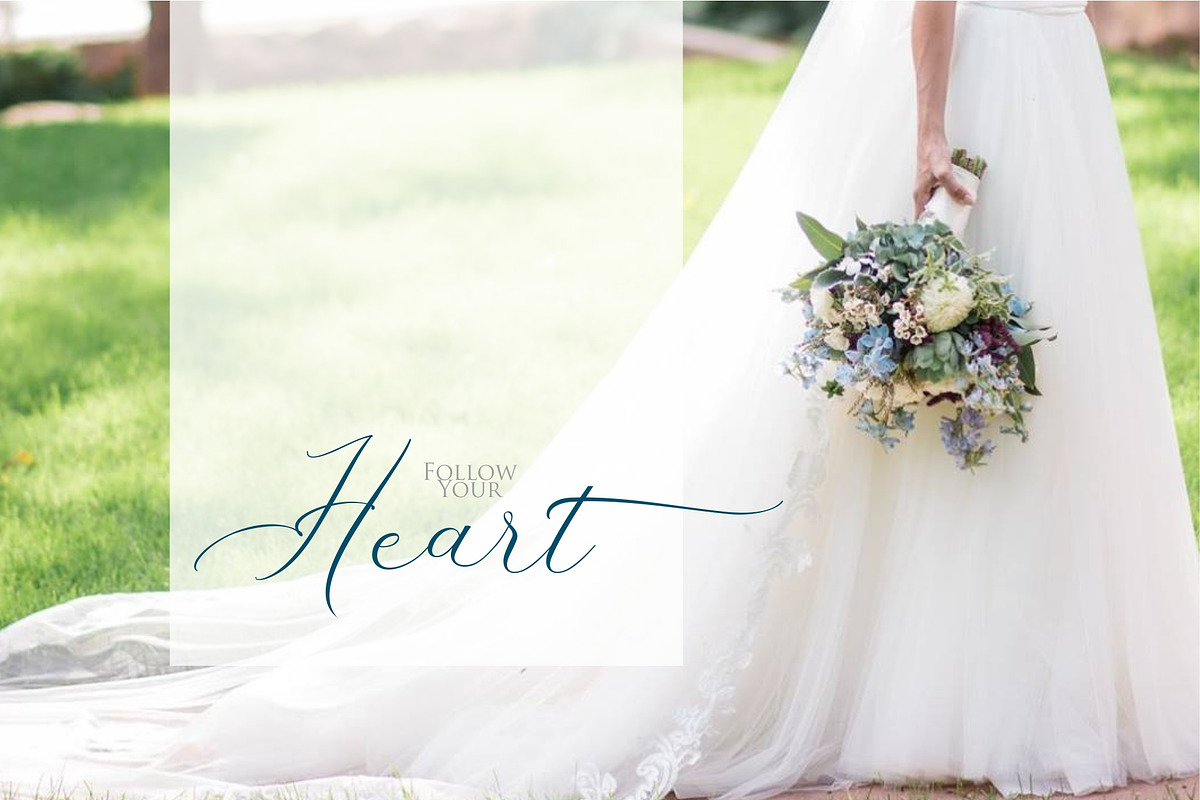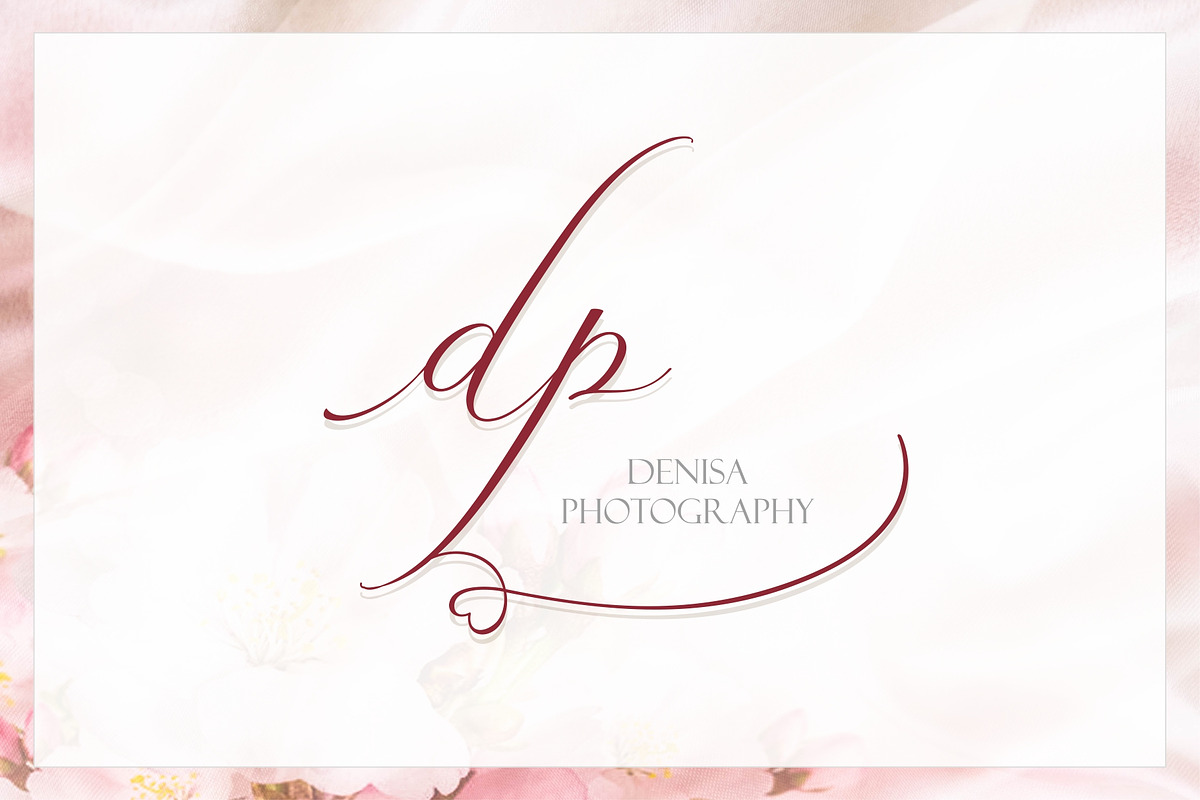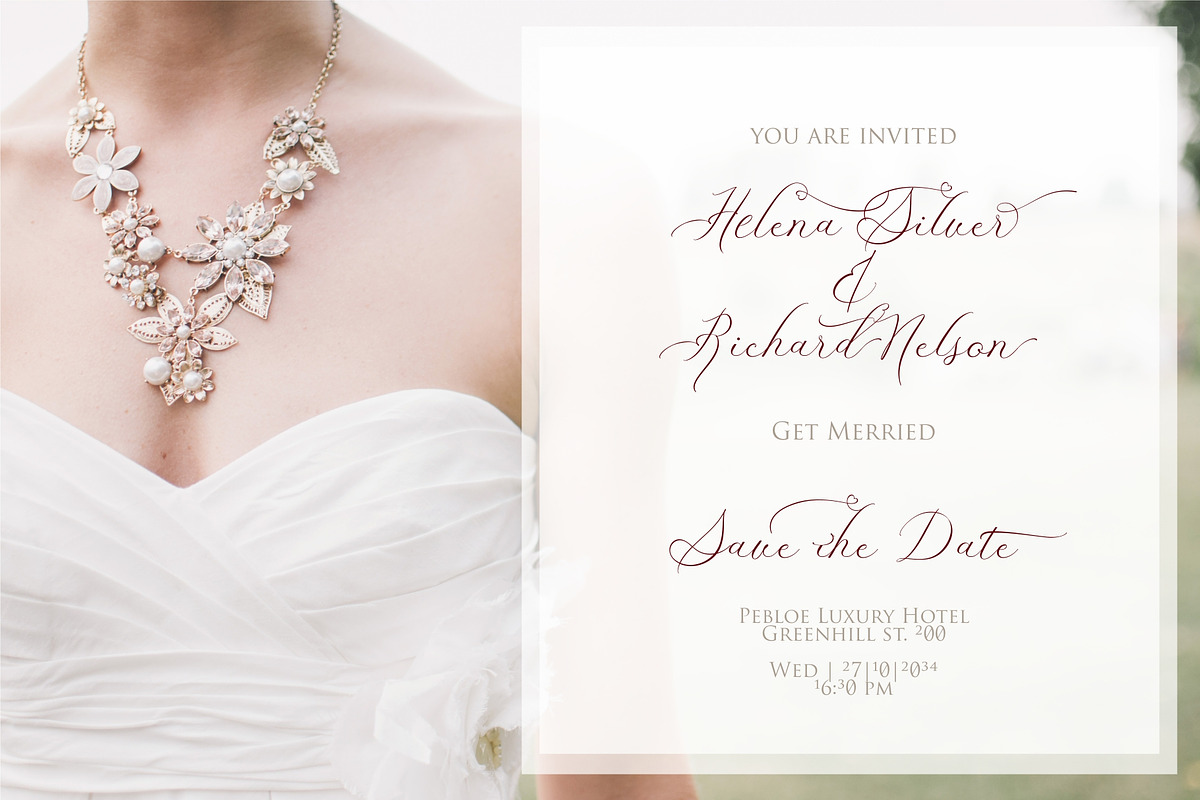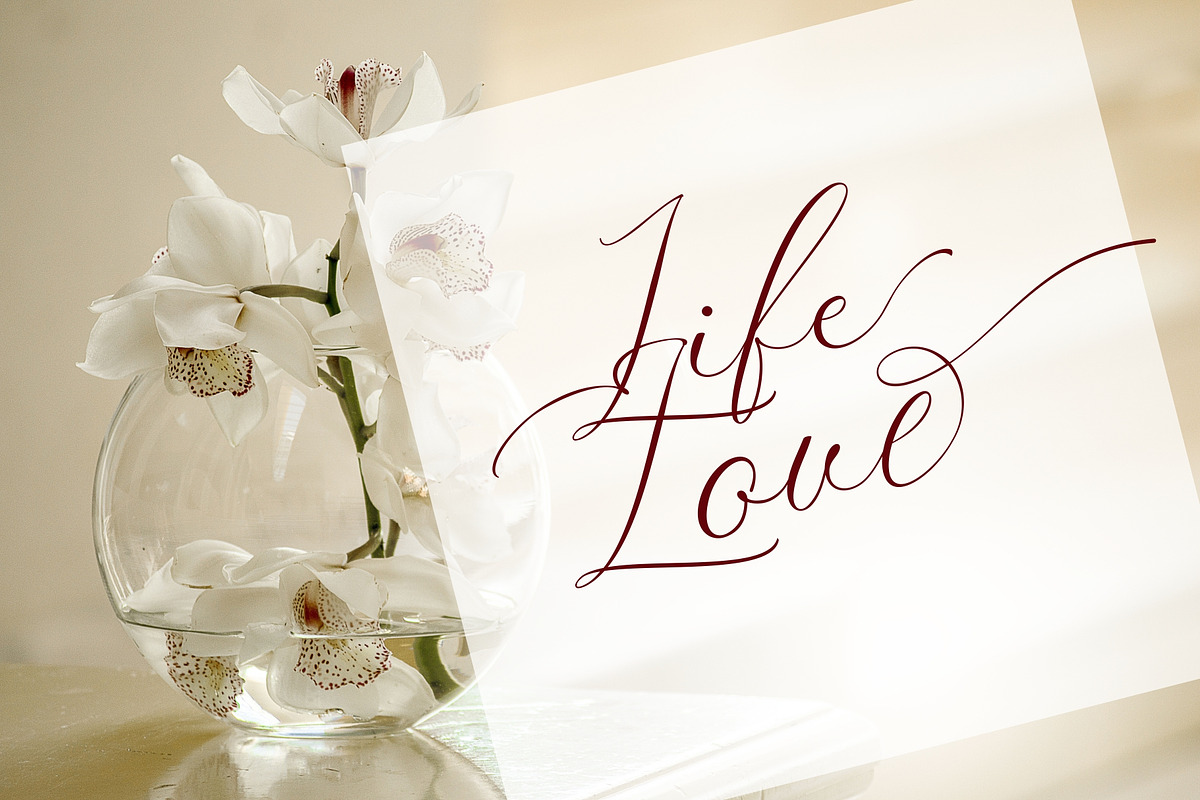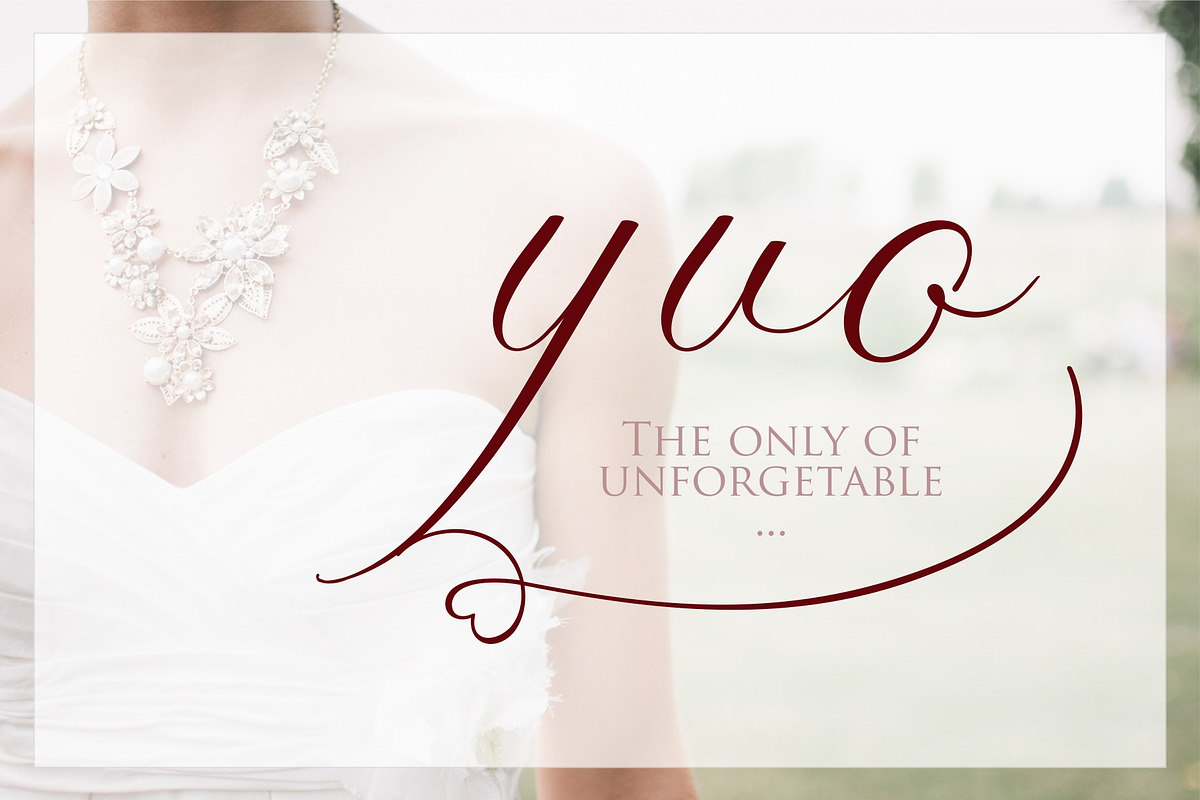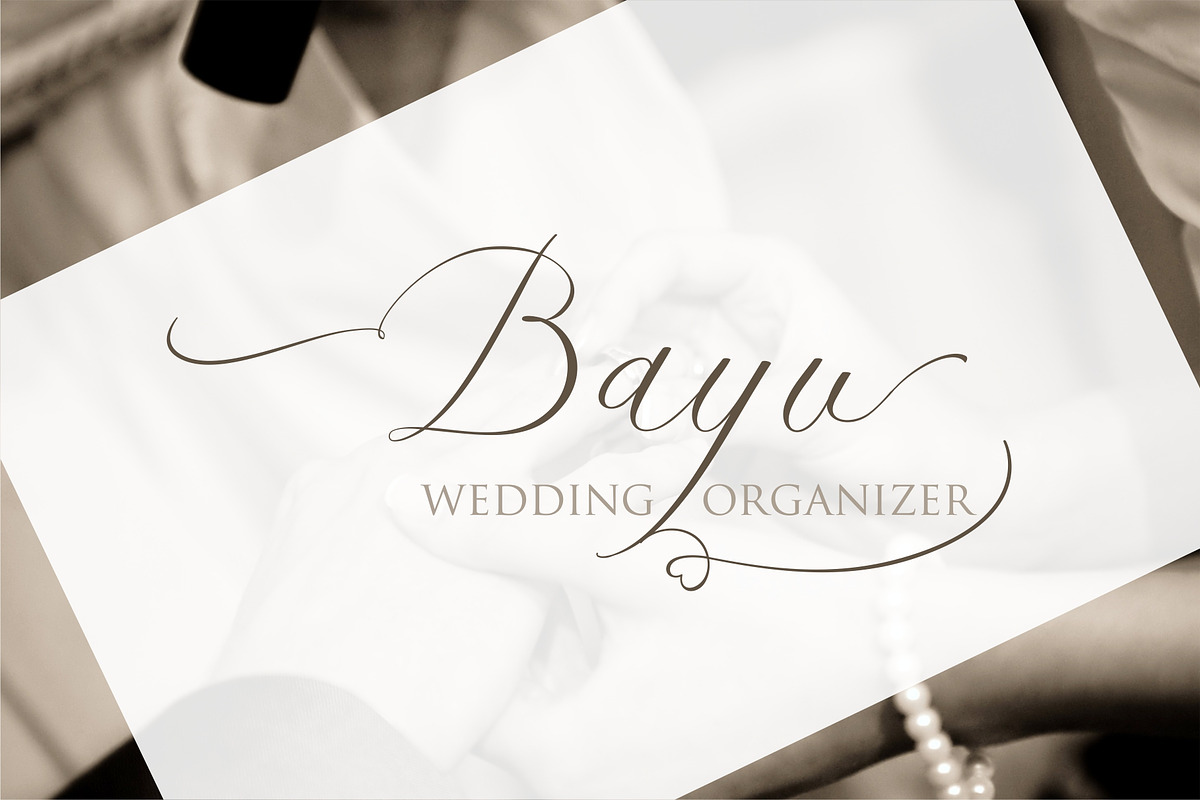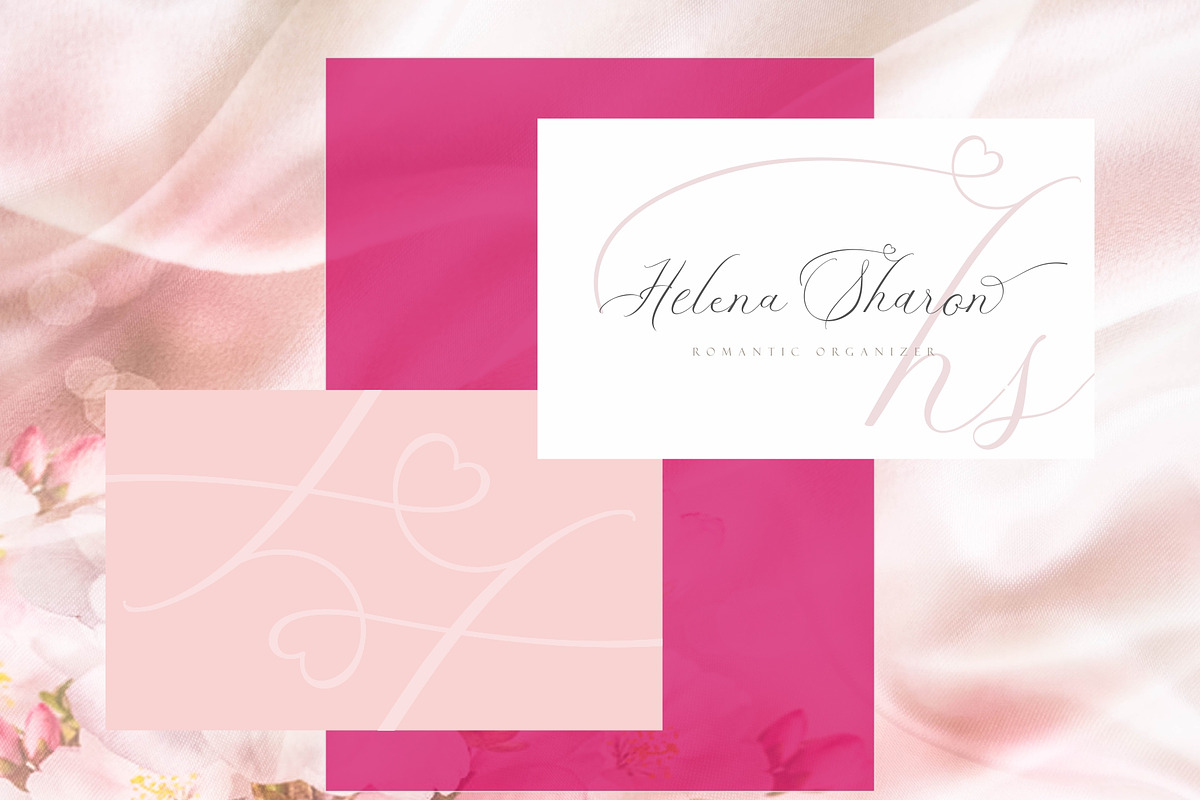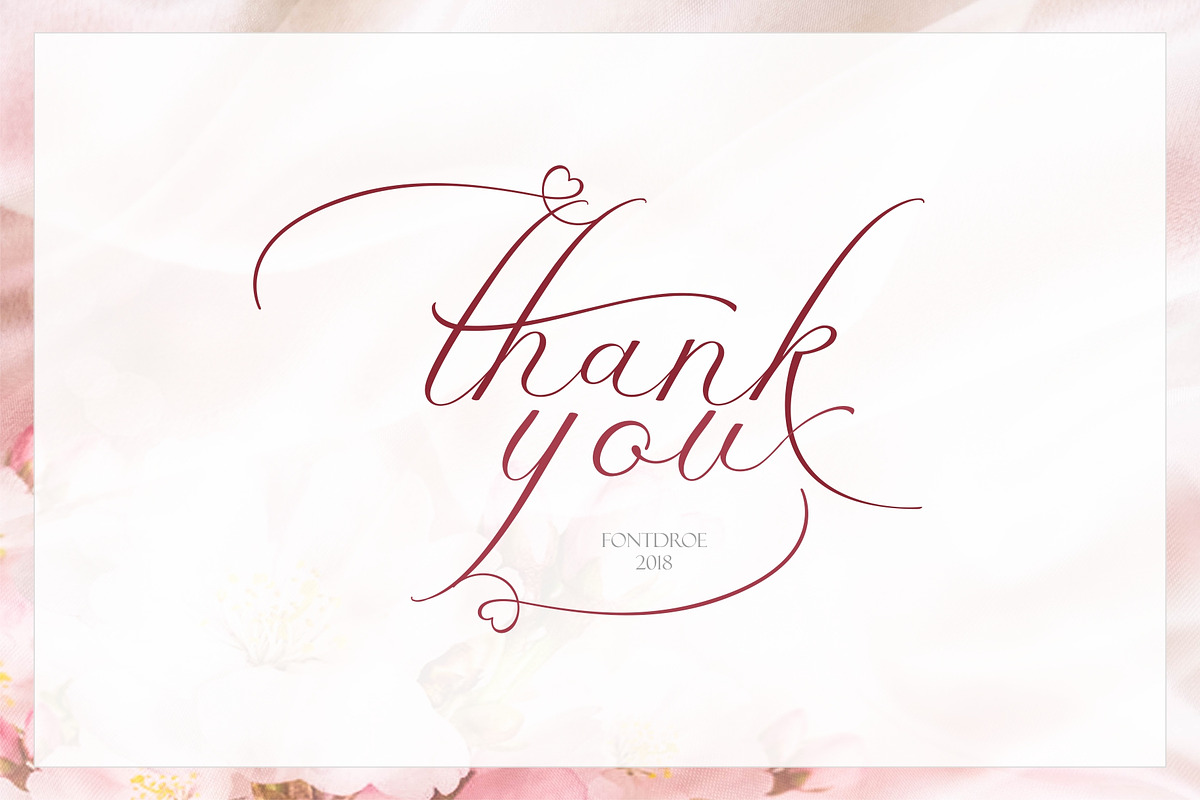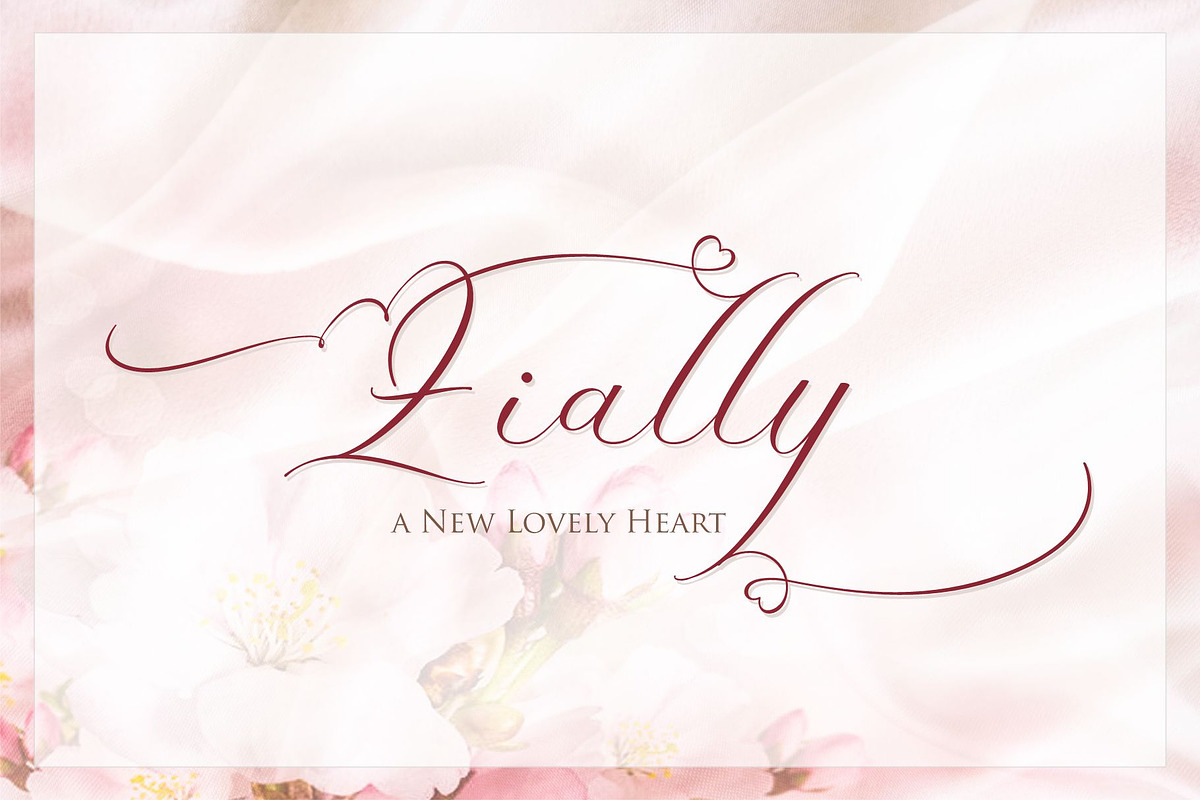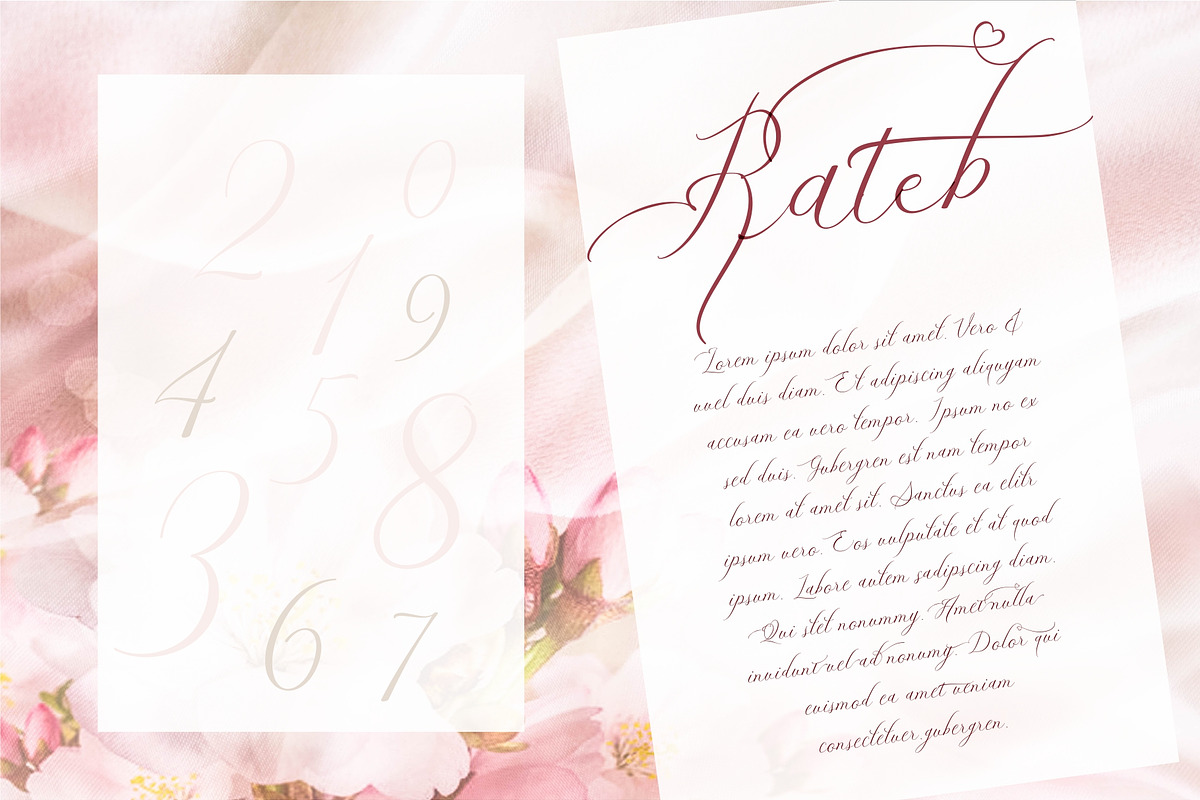
Zially
Zially is a new handwriting typeface built with modern OpenType features with PUA encoded glyphs. This is a smart font that works with popular design software like Photoshop, Coreldraw, Illustrator, Microsoft Office, Cricut, Surecut even Silhoutte software, and more. This freehand typeface welcomes you to use it for various purposes such as logos, cards, wedding invitations, headings, signatures, t-shirts, letterheads, cutting stickers, hot stamping, signage, labels, posters and more.
OPENTYPE TECHNOLOGY:
- Stylistic alternate
- Discretionary Ligatures
- Initial form
- Medial form
- Terminal form
- Punctuations